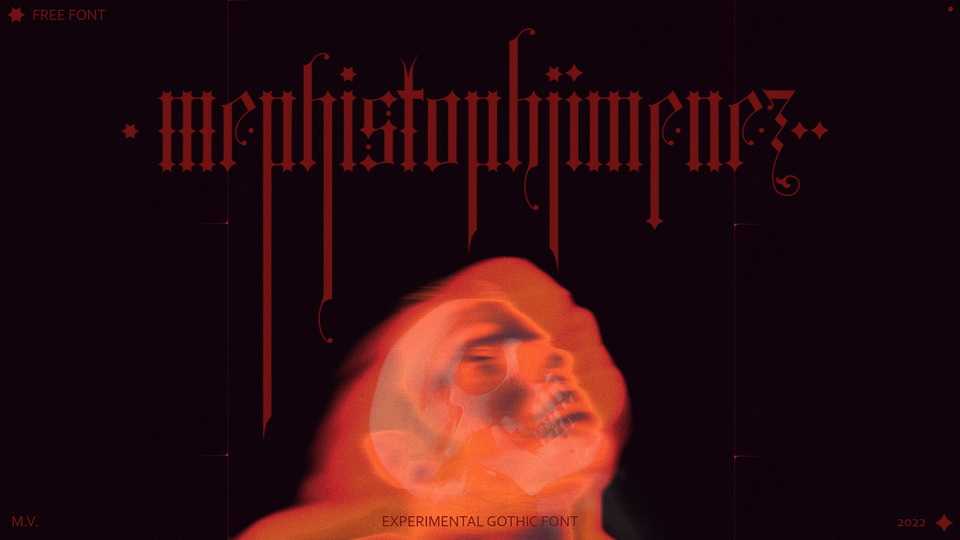
Download Mephistophjimenez font, an experimental gothic typeface. With its razor-sharp look and darkly cool character Mephistophjimenez font is perfect to create tattoos, horror-movie posters, or book titles.